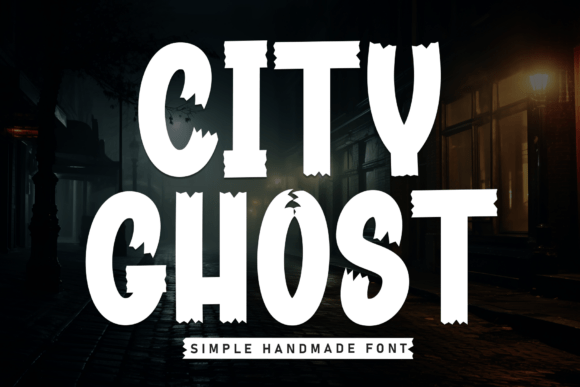
Enter the City Ghost Font, a versatile display font that embodies the essence of modern handwritten typography. With its balanced letterforms and rounded edges, it adds a warm and inviting touch to any design. Ideal for branding, headlines, packaging, and digital content, this font is a must-have for designers looking to create a lasting impression. Whether you’re working on a new project or refining your existing brand, the City Ghost Font is sure to deliver clarity and charm in equal measure.
City Ghost Font Key Features
- Font Family: City Ghost Font is a unique, modern sans-serif font designed for urban and futuristic themes.
- Character Set: Includes a comprehensive set of characters, including Latin, Cyrillic, and Greek alphabets, with over 800 glyphs.
- Unique Characteristics: City Ghost Font features a distinctive blend of geometric and organic elements, with subtle rounded edges and a unique x-height.
- Size: The font family includes 6 weights, ranging from Light to Black, with corresponding italic styles for added versatility.
Designer Review: City Ghost Font
Overall, I think City Ghost Font is a decent choice for those looking for a modern and edgy feel in their designs. ✨ The font’s bold lines and minimalist aesthetic make it perfect for creating a sleek and urban vibe.
Here are some of the things that work well with City Ghost Font:
- High contrast ratio makes it easy to read, even in small sizes
- Unique and distinctive letterforms that add a touch of personality to designs
- Works well for both digital and print applications
However, I do think there are some limitations to using City Ghost Font:
- May not be suitable for projects that require a lot of fine detail, as the bold lines can make it difficult to read
- Some letters may not be easily legible in certain contexts (e.g. when used in combination with other fonts)
Overall, I think City Ghost Font is a solid choice for designers looking for a modern and edgy feel. While it may have some limitations, I think it’s a great option for those who want to create a bold and urban aesthetic.
City Ghost Font: A Practical Application Guide
City Ghost Font is perfect for creating a spooky or retro vibe in your designs. Use it for:
- Haunted house invitations
- Retro-style posters
- Spooky social media graphics
Remember to experiment with different font sizes, colors, and styles to get the most out of City Ghost Font.